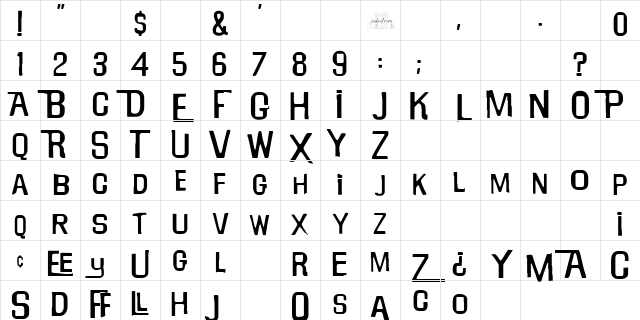
WillRobinson Regular Free Font
WillRobinson Regular
Design Context for WillRobinson
WillRobinson is a composed and adaptable typeface that performs quietly and consistently across a wide range of design contexts.